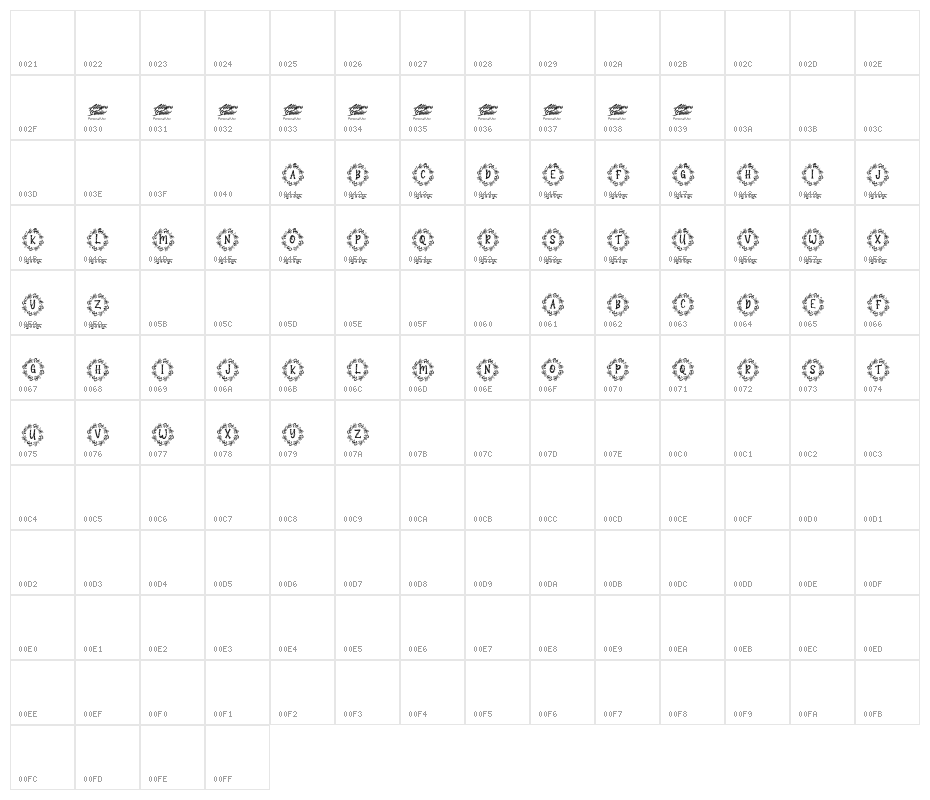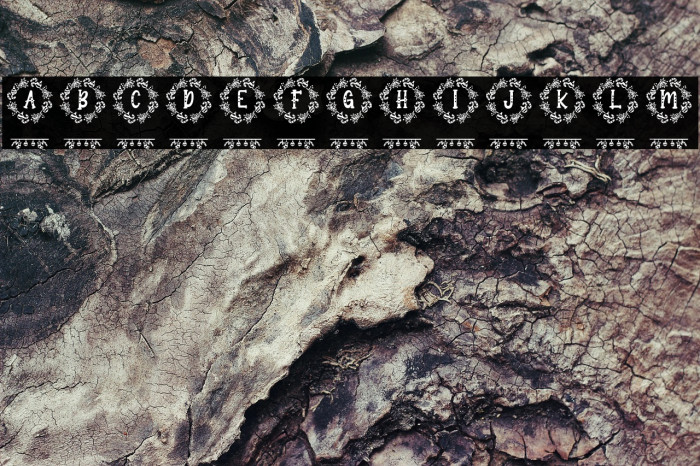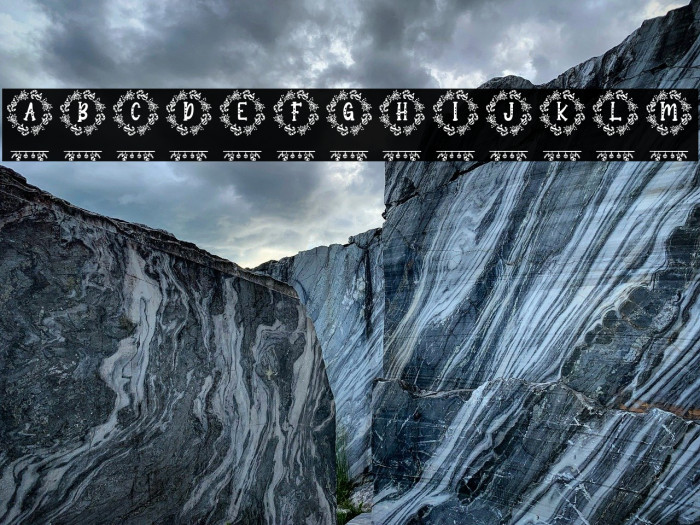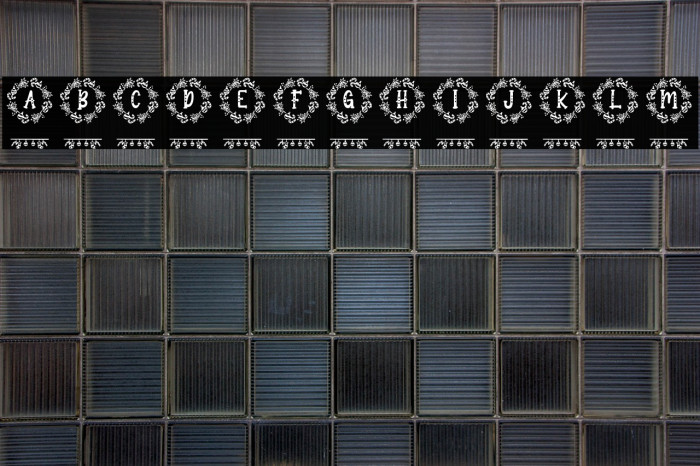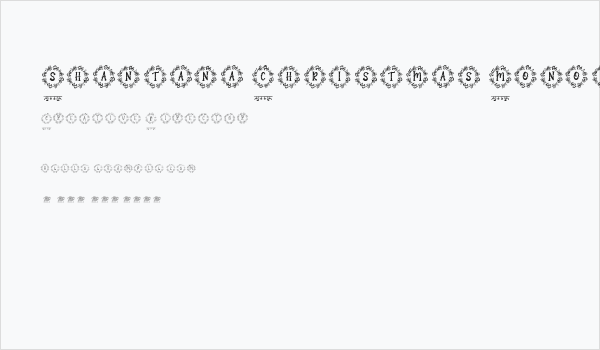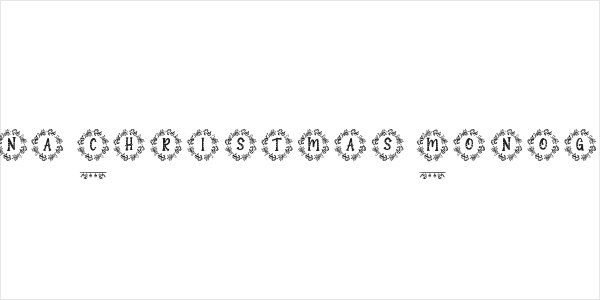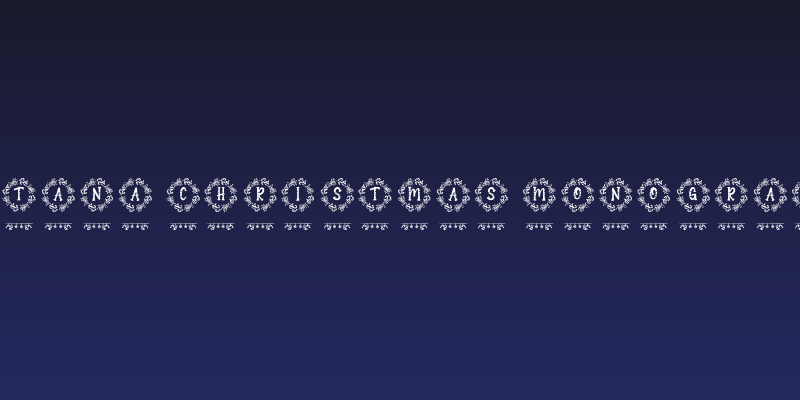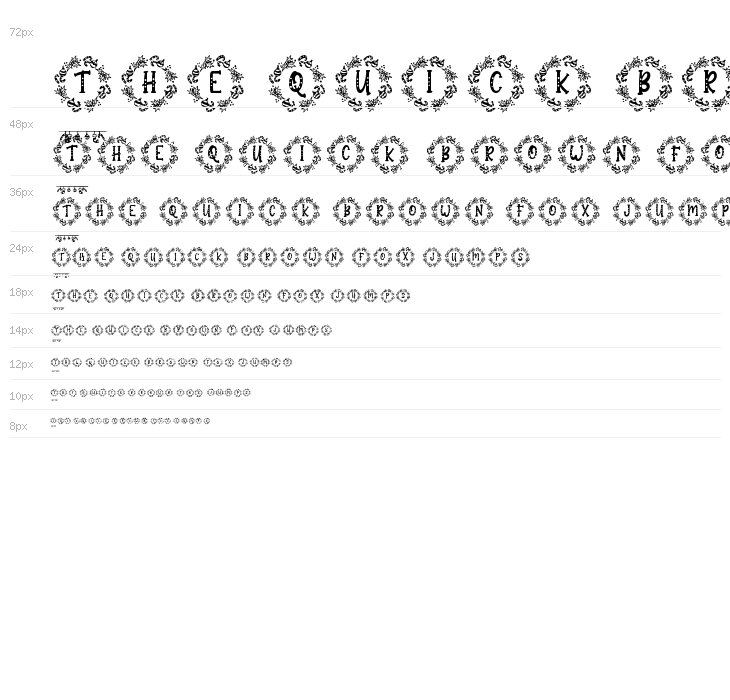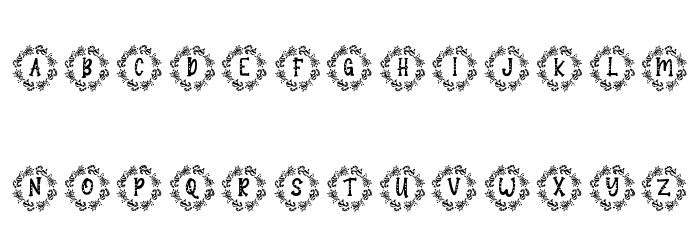
Shantana Christmas Monogram Reg Font
Shantana Christmas Monogram Reg Description
This decorative font features uppercase letters encased in intricate wreath-like designs, evoking a festive and elegant aesthetic. Each letter is surrounded by a circular arrangement of leaves and floral motifs, creating a monogram style that is both sophisticated and playful. The font is ideal for holiday-themed projects, offering a unique blend of traditional and whimsical elements. The characters are evenly spaced, ensuring readability while maintaining their ornate appearance. This font does not include lowercase letters, numbers, or special characters, focusing solely on the uppercase alphabet for a cohesive and thematic presentation.
| Overall Style | Festive, Elegant, Whimsical |
| Use Case | Logos, Invitations, Holiday Cards |
| Proposed Projects | Ideal for holiday cards, invitations, gift tags, and festive branding projects. |